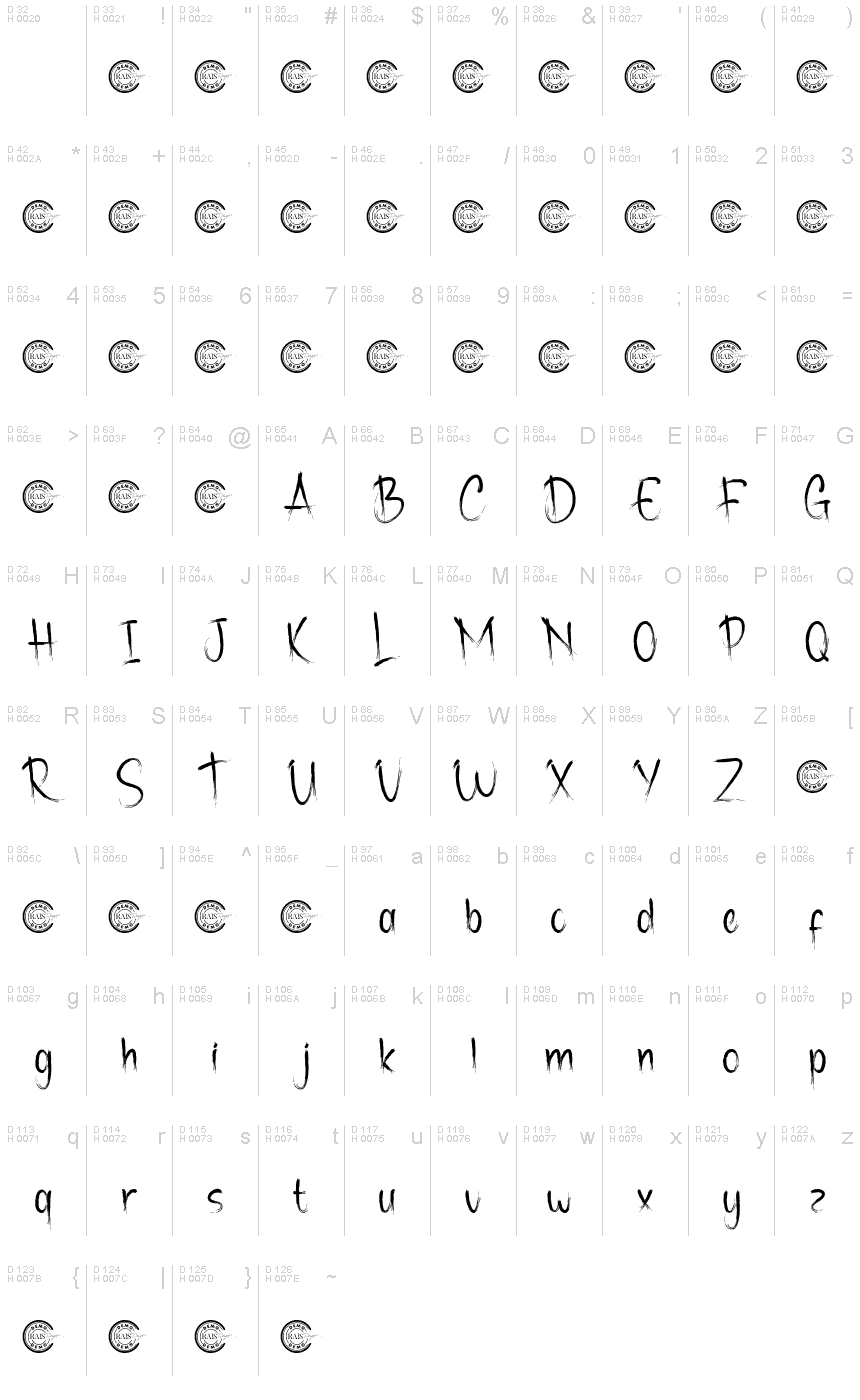
Dry Paint Demo
Dry Paint, the latest creation by RaisProject, offers a unique and creative take on the dry brush style. Its semi-light weight and irregular strokes give it a hand-painted feel that's perfect for projects looking to add an artistic touch. With its edgy yet approachable aesthetic, Dry Paint is ideal for branding, packaging design, social media graphics, and even website headers. Whether you're creating a logo or designing promotional materials, this semi-bold font will make your message stand out with its bold strokes and organic texture. Bring your designs to life with Dry Paint!